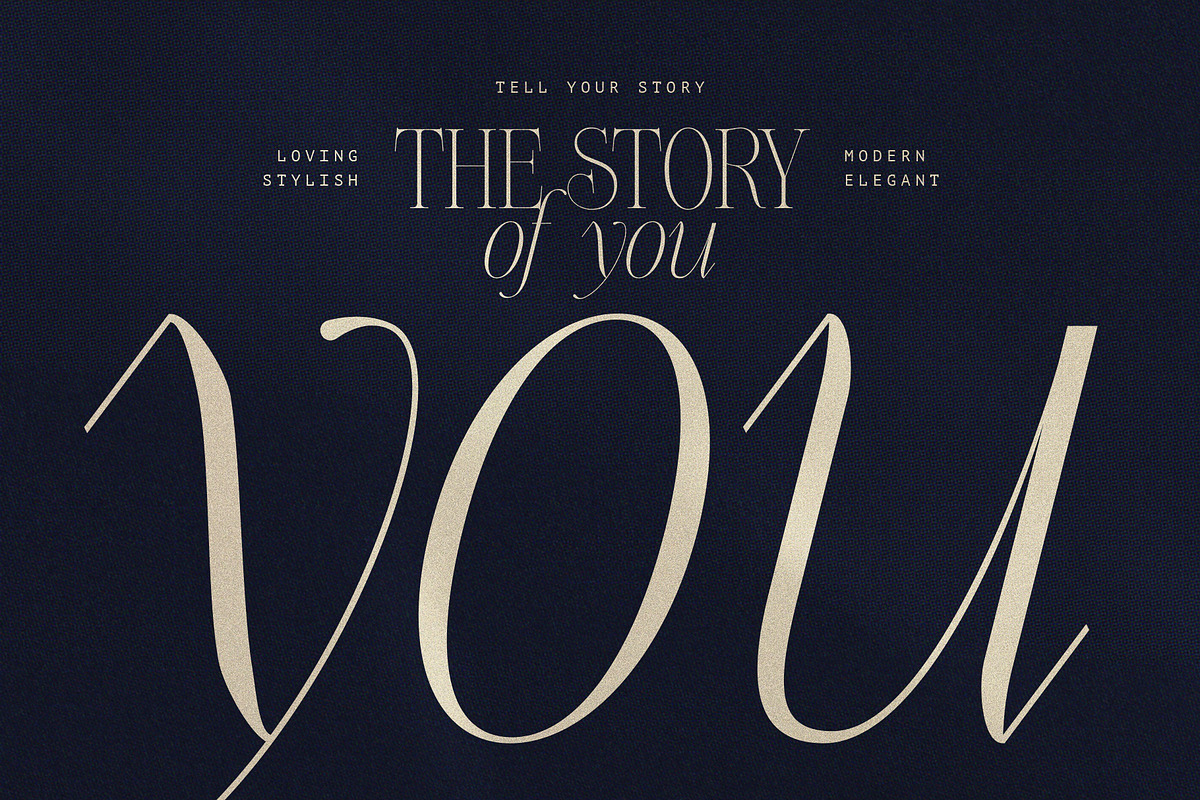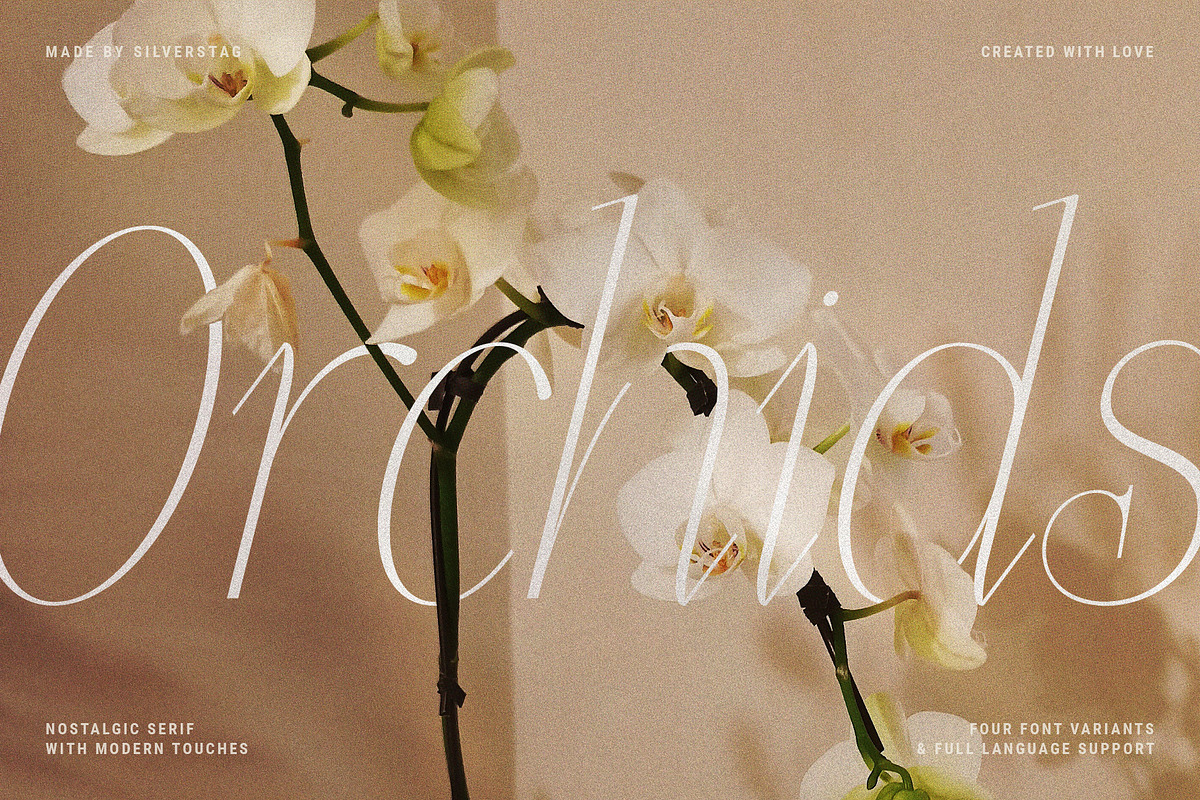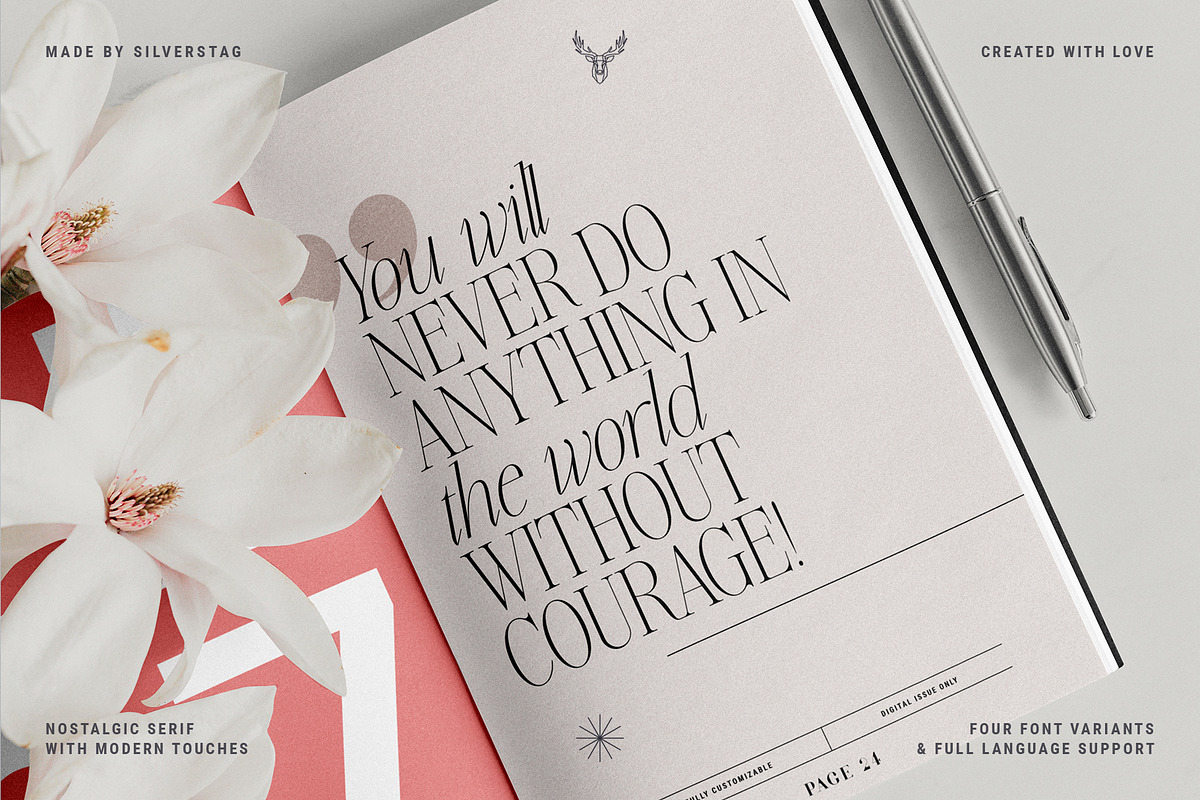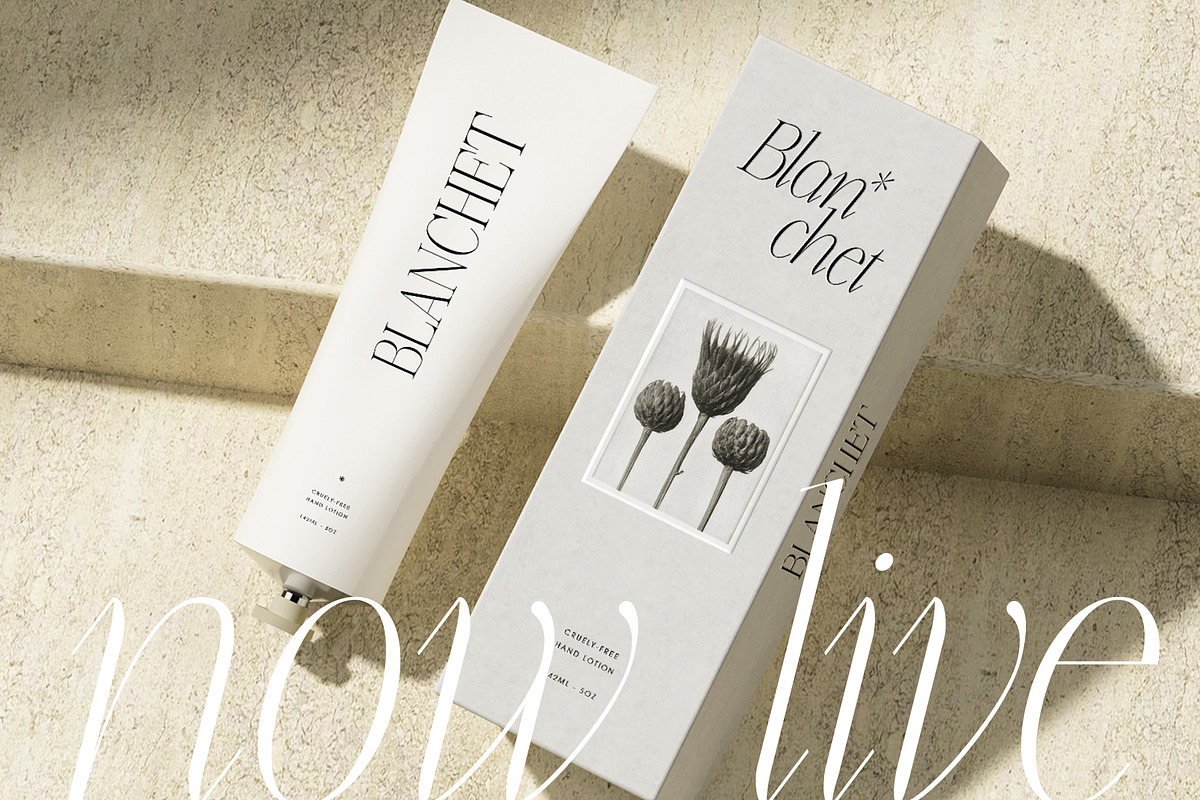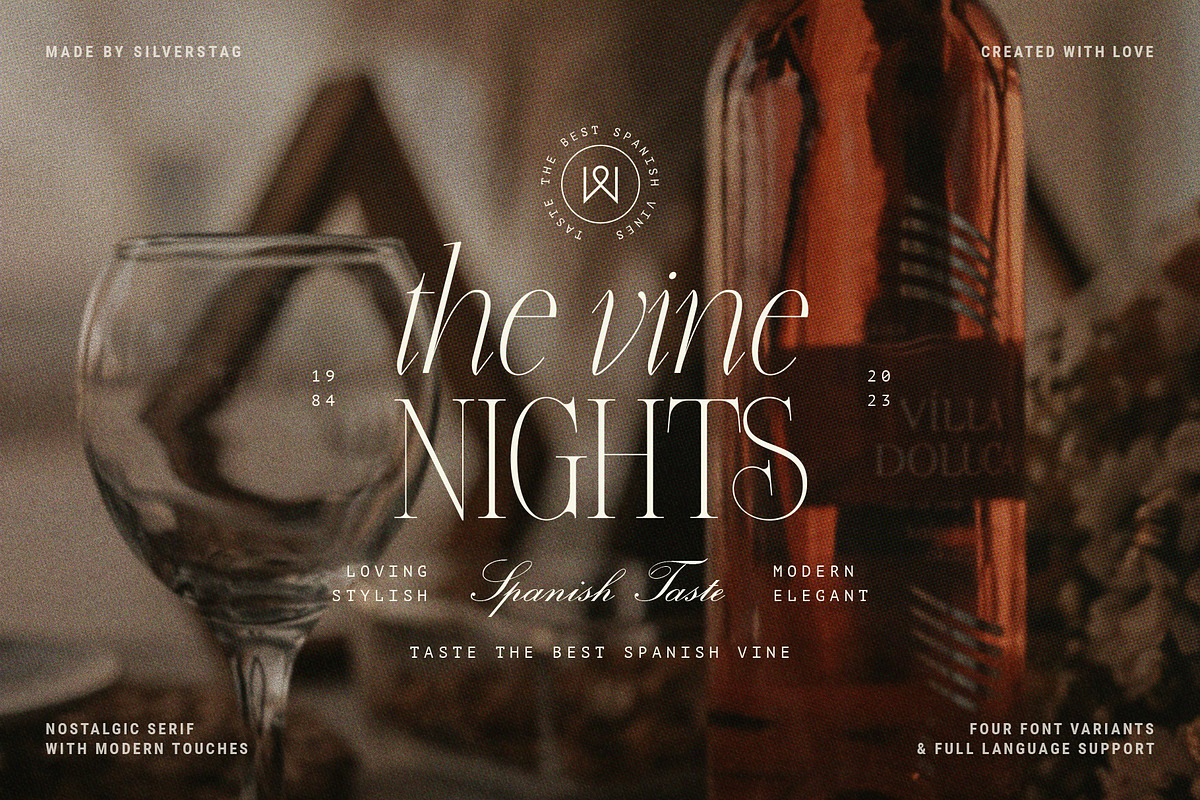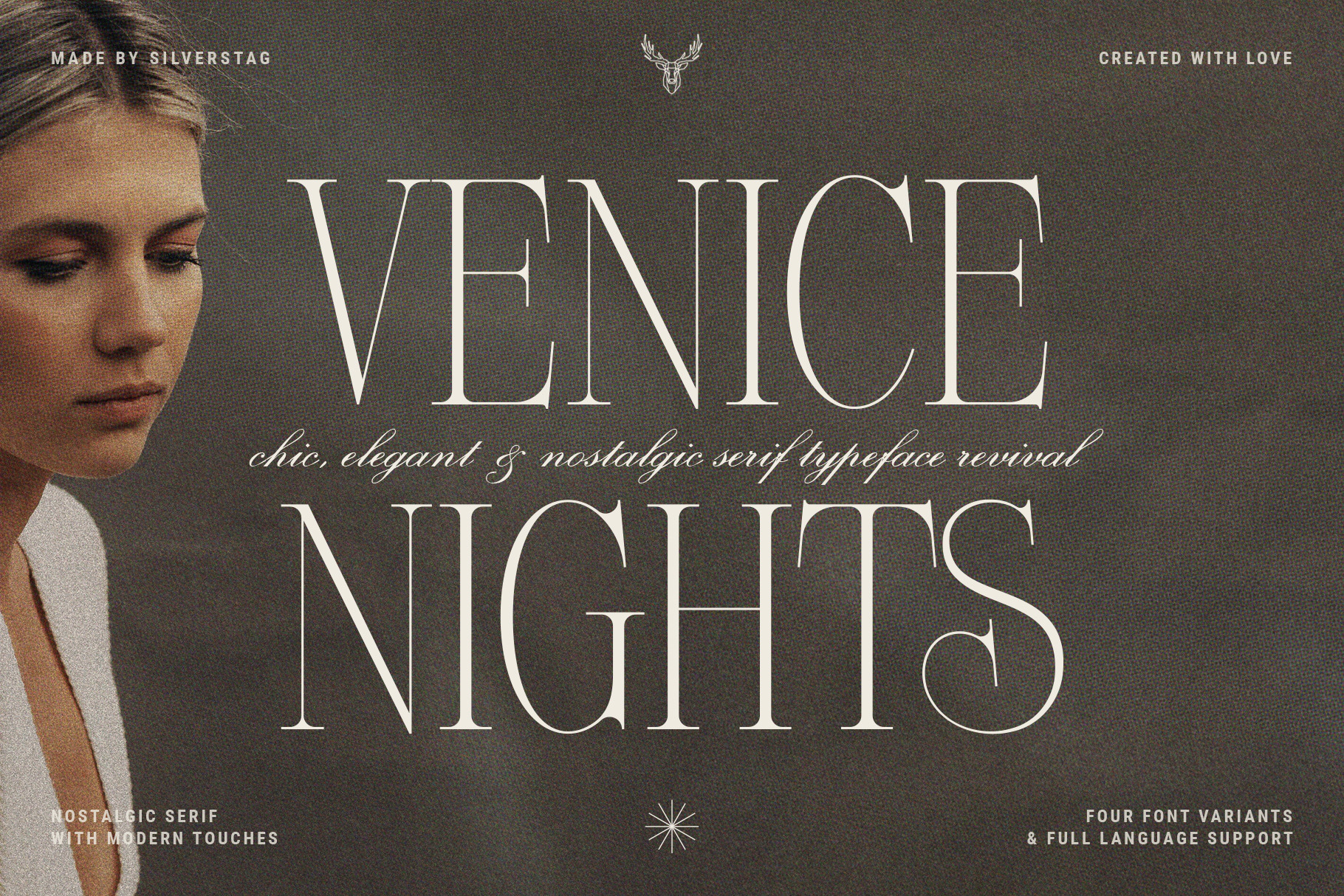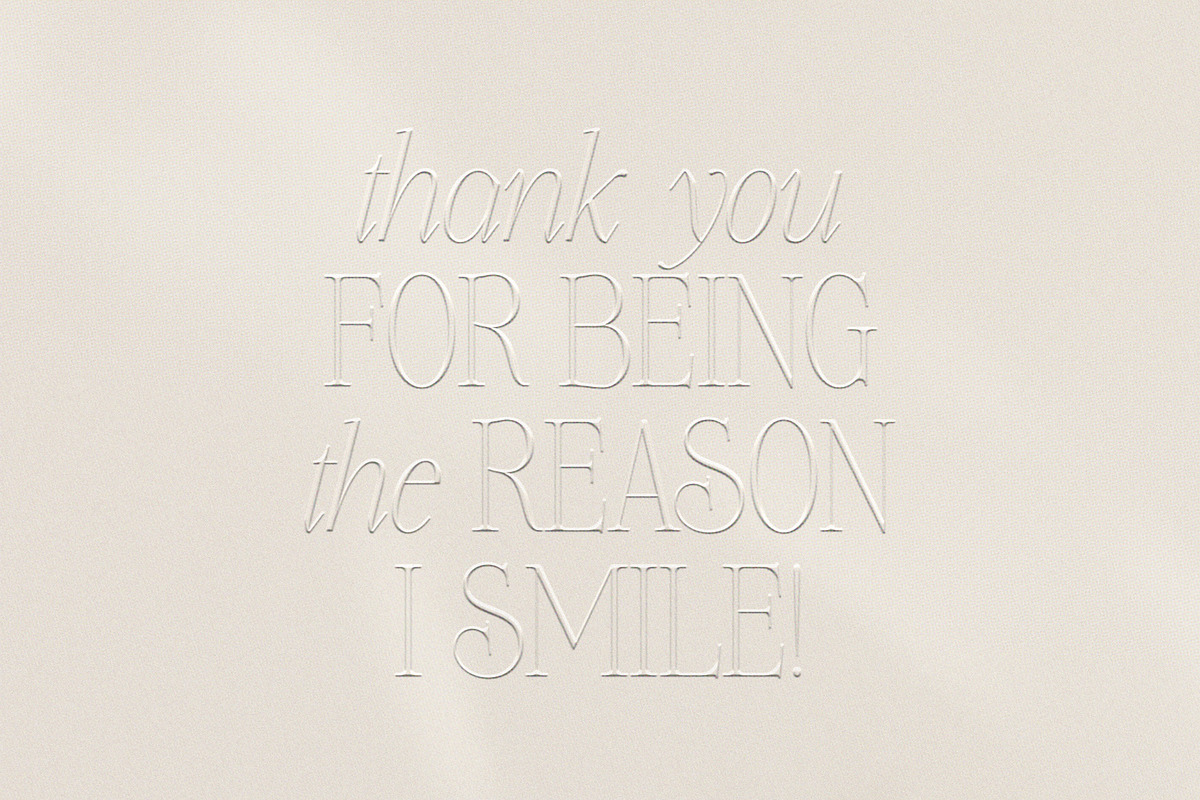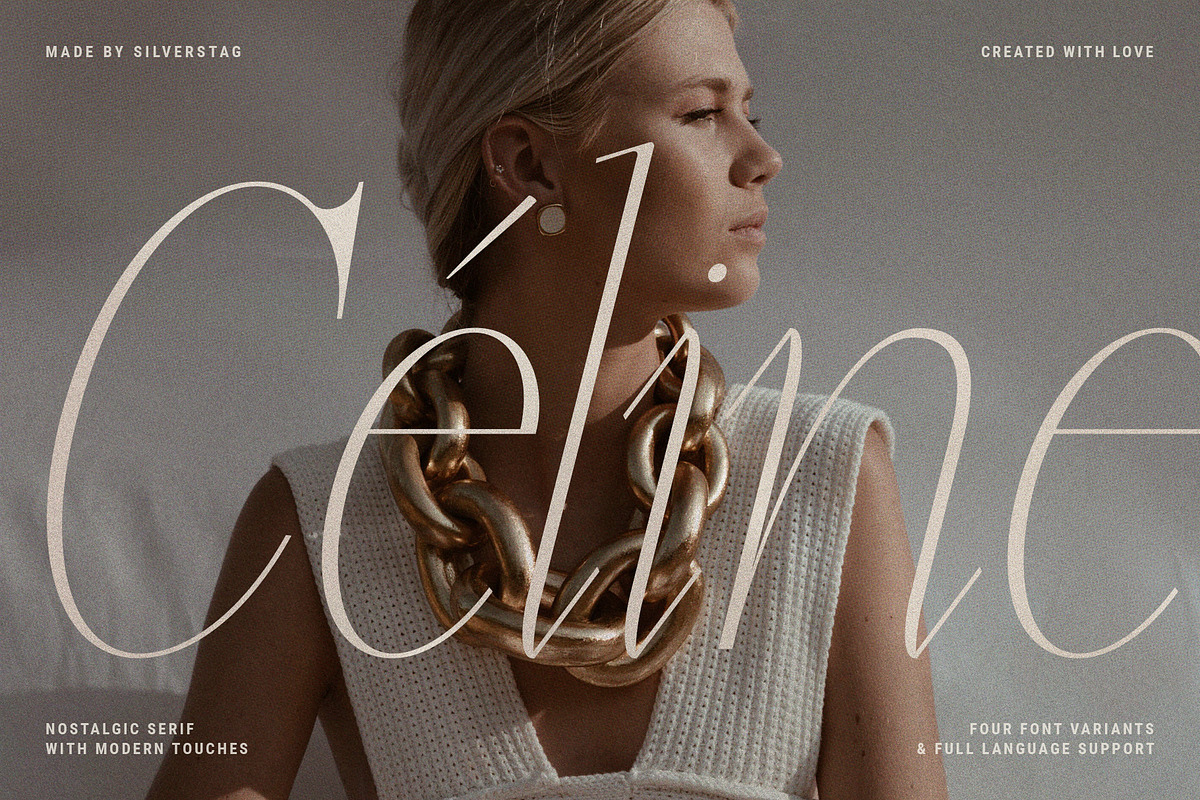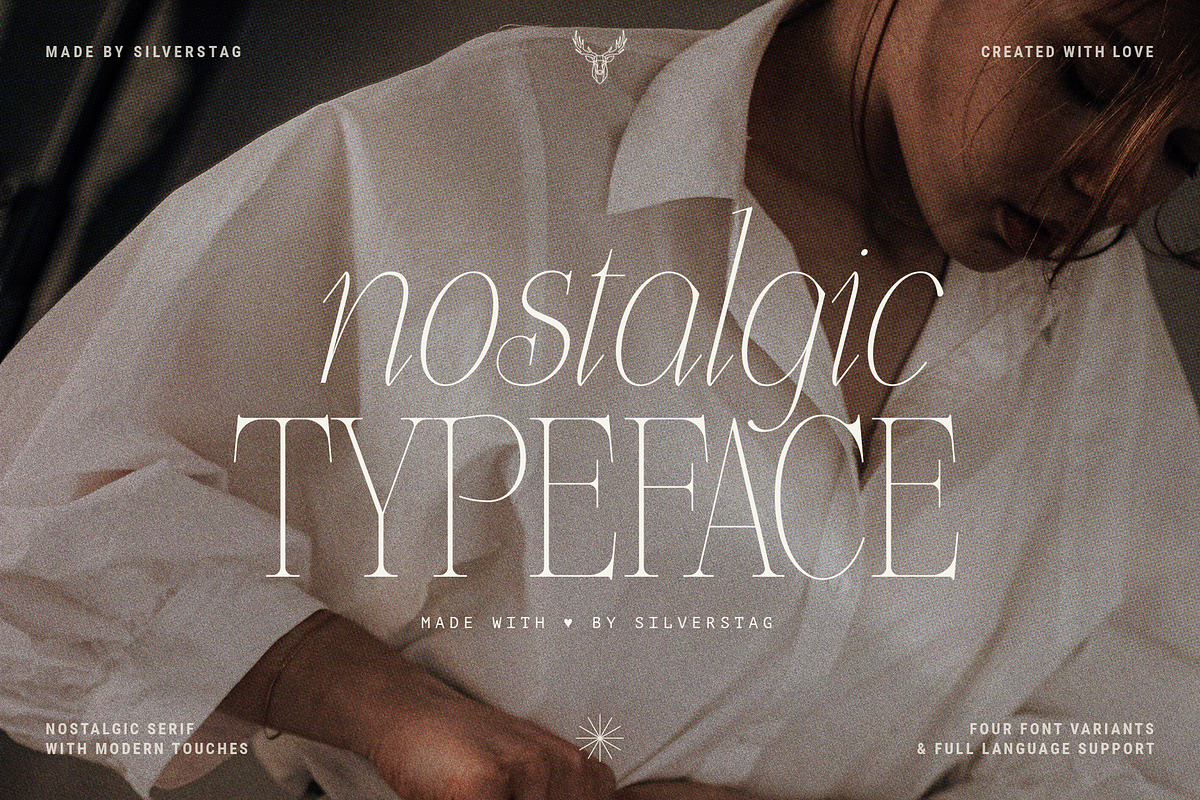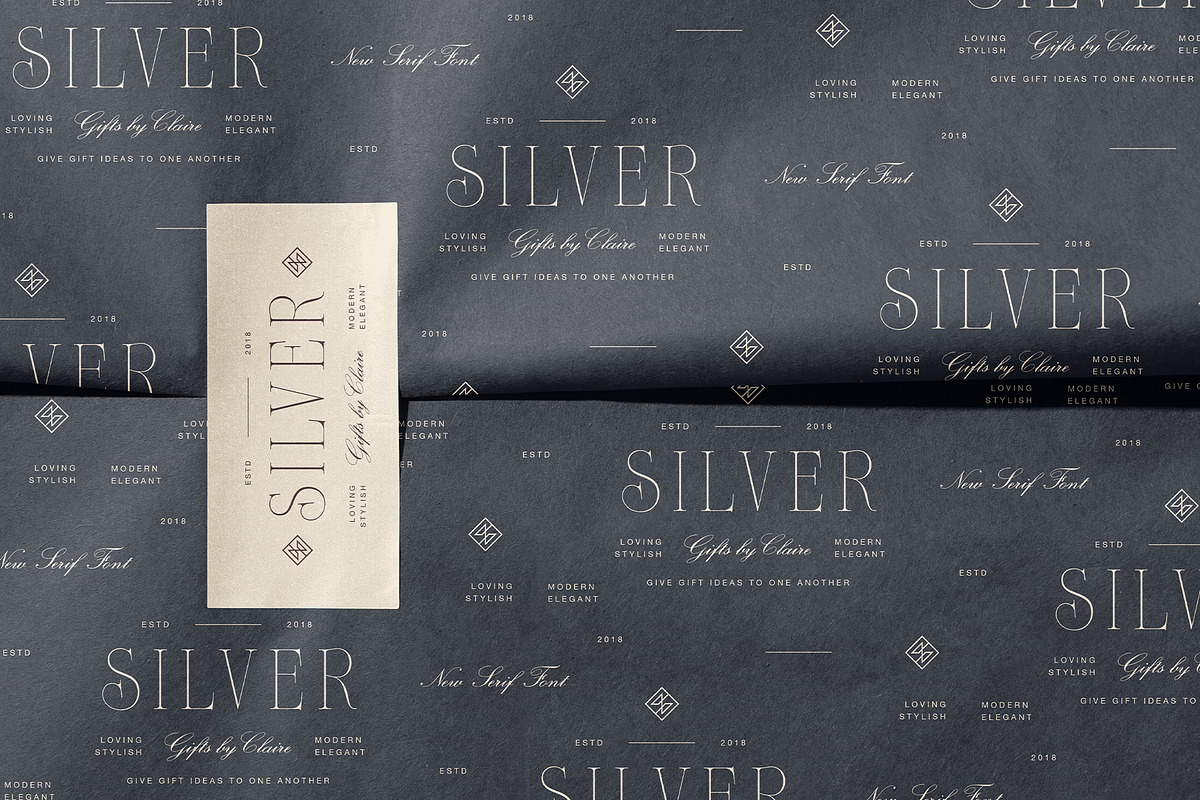
Venice Nights - Nostalgic Serif Font
Vintage & chic, nostalgic & super elegant, curvy & angled! Venice Nights is a brand new nostalgic serif font revival that brings all these and even more. It is perfect for logos & quotes, posters & branding, website headlines, newsletters & more! It includes 4 different font options, regular, italic, bold and bold italic so you can combine it to get the look you want!